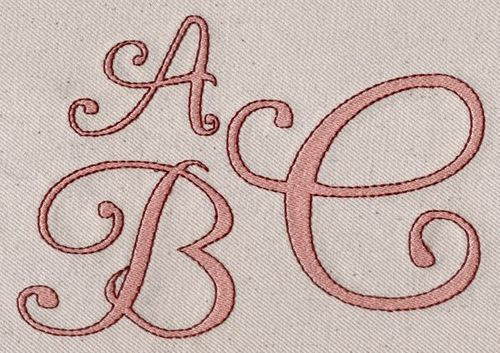
056 Girly Font
Girly Font Embroidery Design Set Is a new curly font that features a smooth flat fill stitched center outlined with traditional Redwork stitching. Upper and Lower Case letters are included in three sizes: 2", 3" and 4".